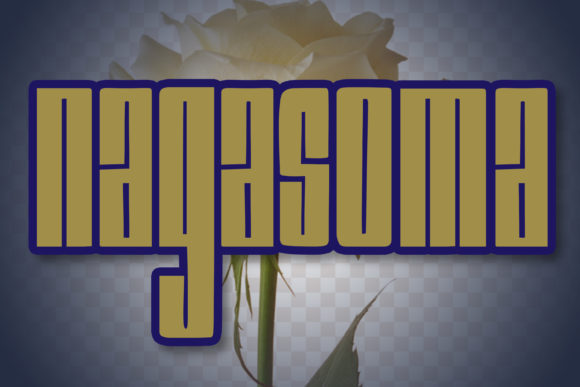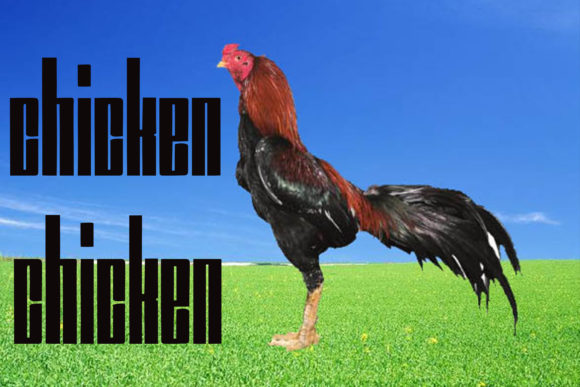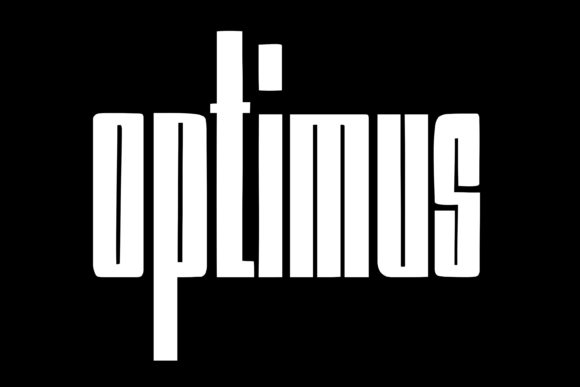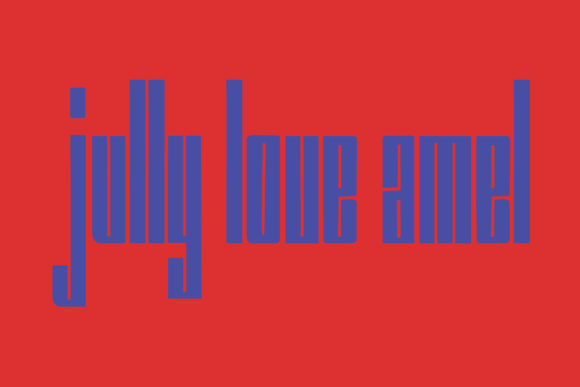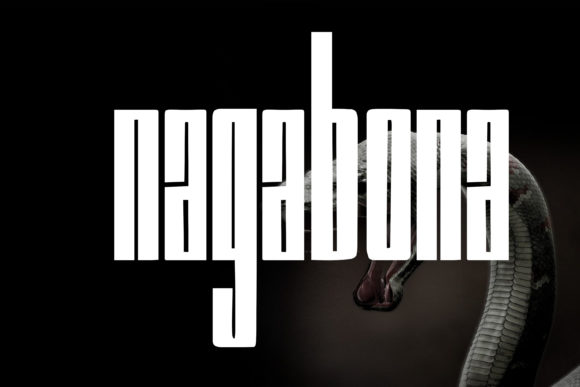
Introducing Busway Font: The Bold and Robotic Display Font
Are you tired of using the same old fonts in your designs? Look no further than Busway Font, a bold and incredibly robotic display font that’s sure to elevate any creation. Whether you’re a designer, craftsperson, or simply someone who loves to dabble in typography, Busway Font is an incredibly valuable asset to have in your font library.
What Makes Busway Font So Special?
Busway Font is a one-of-a-kind display font that’s designed to make a statement. Its bold, robotic design is perfect for creating eye-catching headlines, titles, and captions that demand attention. The font’s unique character set and sleek lines make it ideal for a wide range of design applications, from posters and flyers to digital graphics and branding materials.
Key Features of Busway Font
- Bold and Robotic Design: Busway Font features a bold, robotic design that’s perfect for creating eye-catching headlines and titles.
- Highly Versatile: This font is incredibly versatile and can be used for a wide range of design applications, from posters and flyers to digital graphics and branding materials.
- Unique Character Set: Busway Font features a unique character set that’s designed to make your designs stand out from the crowd.
- Easily Readable: Despite its bold design, Busway Font is surprisingly easy to read, making it perfect for use in a variety of contexts.
How to Use Busway Font in Your Designs
Busway Font is incredibly easy to use and can be incorporated into your designs in a variety of ways. Here are a few ideas to get you started:
- Headlines and Titles: Use Busway Font to create bold, eye-catching headlines and titles that demand attention.
- Posters and Flyers: Busway Font is perfect for use in posters and flyers, where its bold design can really make an impact.
- Branding Materials: Use Busway Font to create unique and memorable branding materials, such as logos, business cards, and letterheads.
- Digital Graphics: Busway Font can also be used in digital graphics, such as social media graphics, website headers, and more.
Why Busway Font is a Must-Have for Designers and Craftspersons
Busway Font is a must-have for designers and craftspersons for a variety of reasons. Here are just a few:
- Adds a Unique Touch: Busway Font adds a unique touch to any design, setting it apart from more traditional fonts.
- Incredibly Versatile: This font is incredibly versatile and can be used in a wide range of design applications.
- Easy to Read: Despite its bold design, Busway Font is surprisingly easy to read, making it perfect for use in a variety of contexts.
- High-Quality Design: Busway Font is designed to high-quality standards, ensuring that it looks great in any design.
| Author | Imun Studio |
In conclusion, Busway Font is a bold and incredibly robotic display font that’s sure to elevate any creation. Its unique character set, sleek lines, and highly versatile design make it an incredibly valuable asset to have in your font library. Whether you’re a designer, craftsperson, or simply someone who loves to dabble in typography, Busway Font is a must-have.